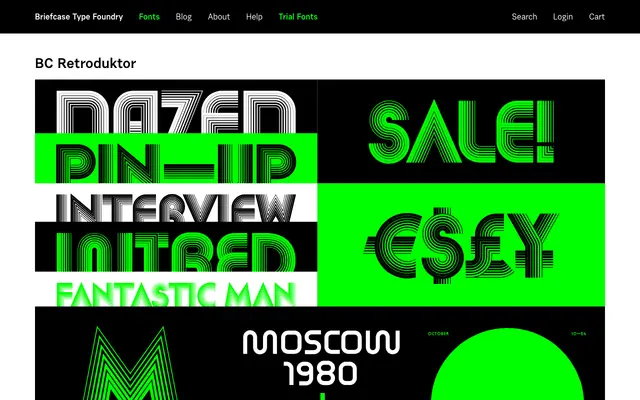
BC Retroduktor
A retro-themed display typeface from Briefcase Type Foundry with a vintage character.
BC Retroduktor is a display typeface from Briefcase Type Foundry, designed around a retro aesthetic suited to headline and branding work. The name suggests an affinity with mid-century or vintage lettering traditions, positioning it for projects that need period character without resorting to direct historical revival. Limited page content prevents a fuller account of its weights and language support.
The name and foundry context suggest a display typeface with a retro aesthetic, likely drawing on mid-century or vintage lettering traditions.